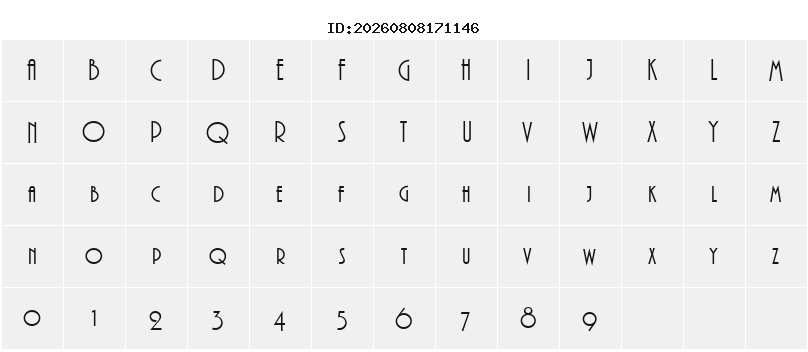
PlazaSCDReg Preview
• Font Name: PlazaSCDReg
• Full Font Name: PlazaSCDReg
About PlazaSCDReg.ttf
PlazaSCDReg.ttf is a modern, elegant sans-serif font designed for ultimate readability and visual harmony. Perfect for branding, headlines, web design, and print materials.